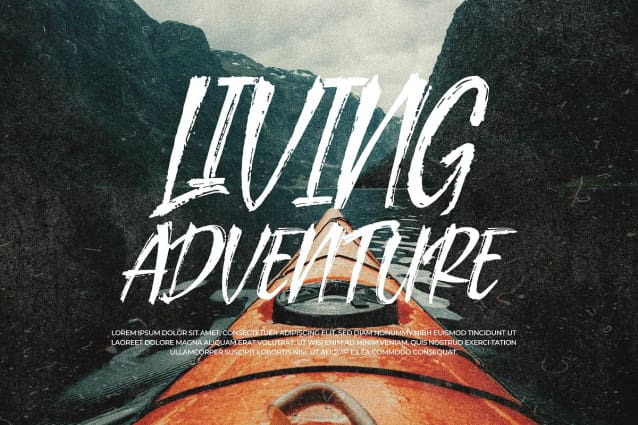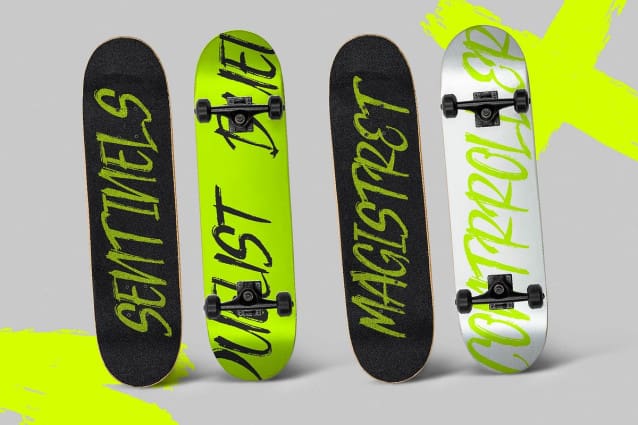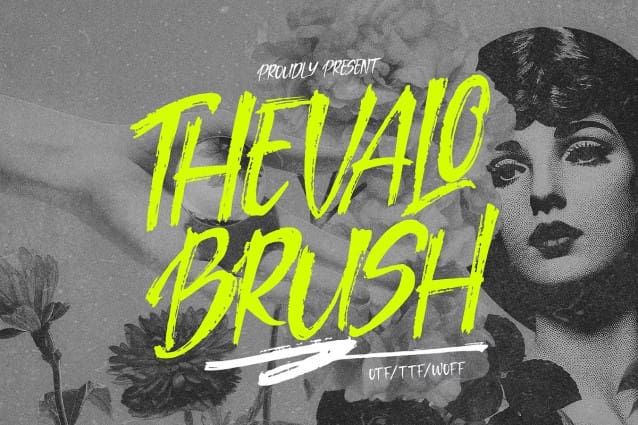
Thevalo Brush Font
Thevalo Brush Font | Brush Script Font, from Denustudios, suitable for any projects such as: logos, branding projects, homeware designs, product packaging, mugs, quotes, posters, shopping bags, t-shirts, book covers, name card, invitation cards, greeting cards, label, photography, watermark, special events, and all your other lovely projects that need a Brush Script Font taste.